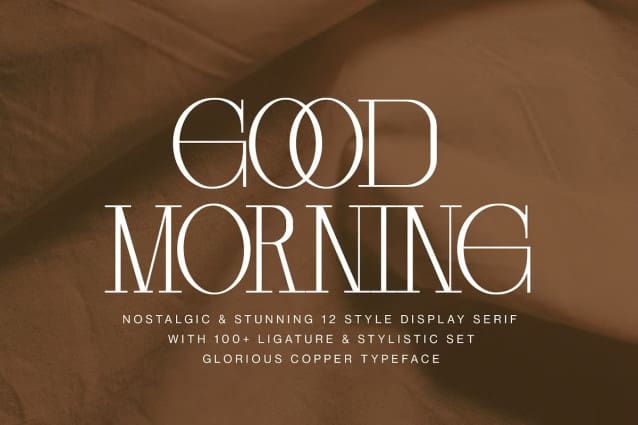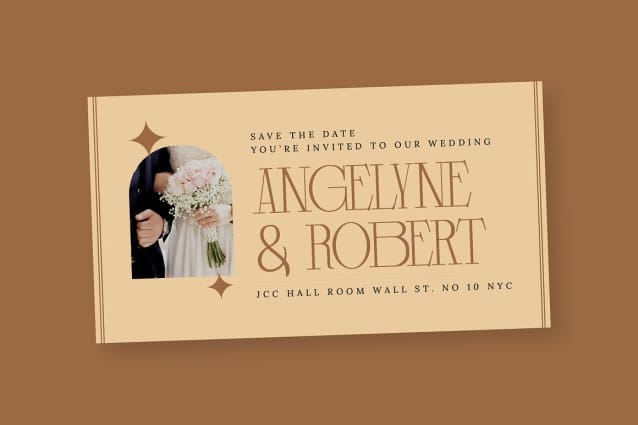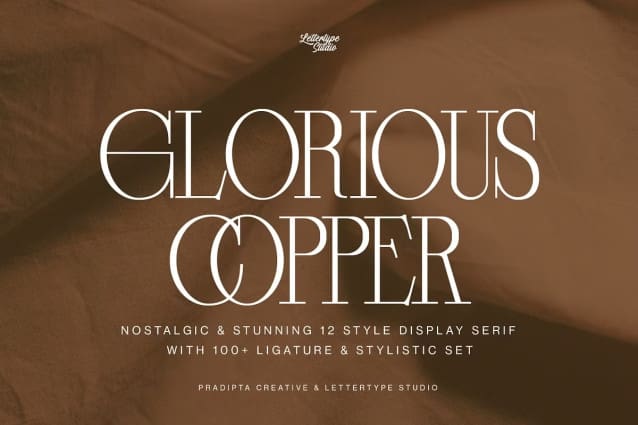
Glorious Copper Font
Glorious Copper Font is a nostalgic & stunning 12 style display serif with 100+ ligature & stylistic set. Glorious Copper is perfect for vintage vibes, logo design, classic & vintage poster layouts, branding, signage, wedding invitations, fashion, lookbooks, book covers, packaging, food & beverages, and also good for quotes, or simply as a stylish text overlay to any background image and much more!